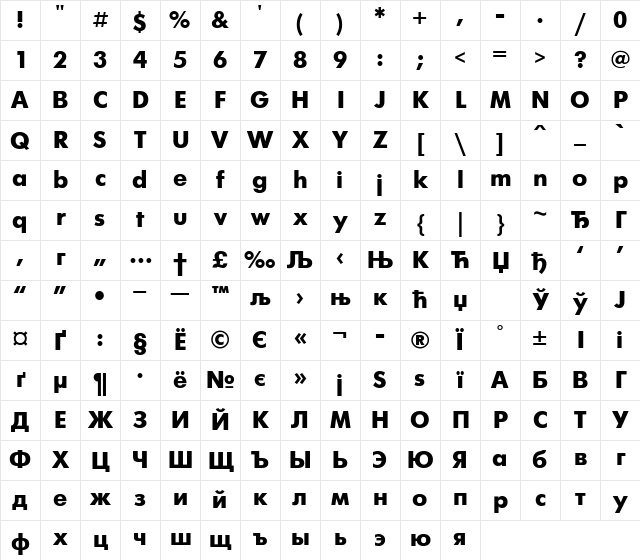
FuturisExtraCTT Regular
Design Context for FuturisExtraCTT
FuturisExtraCTT has a distinctly futuristic character, with geometric precision and clean angles that feel at home in technology, gaming, and sci-fi contexts.